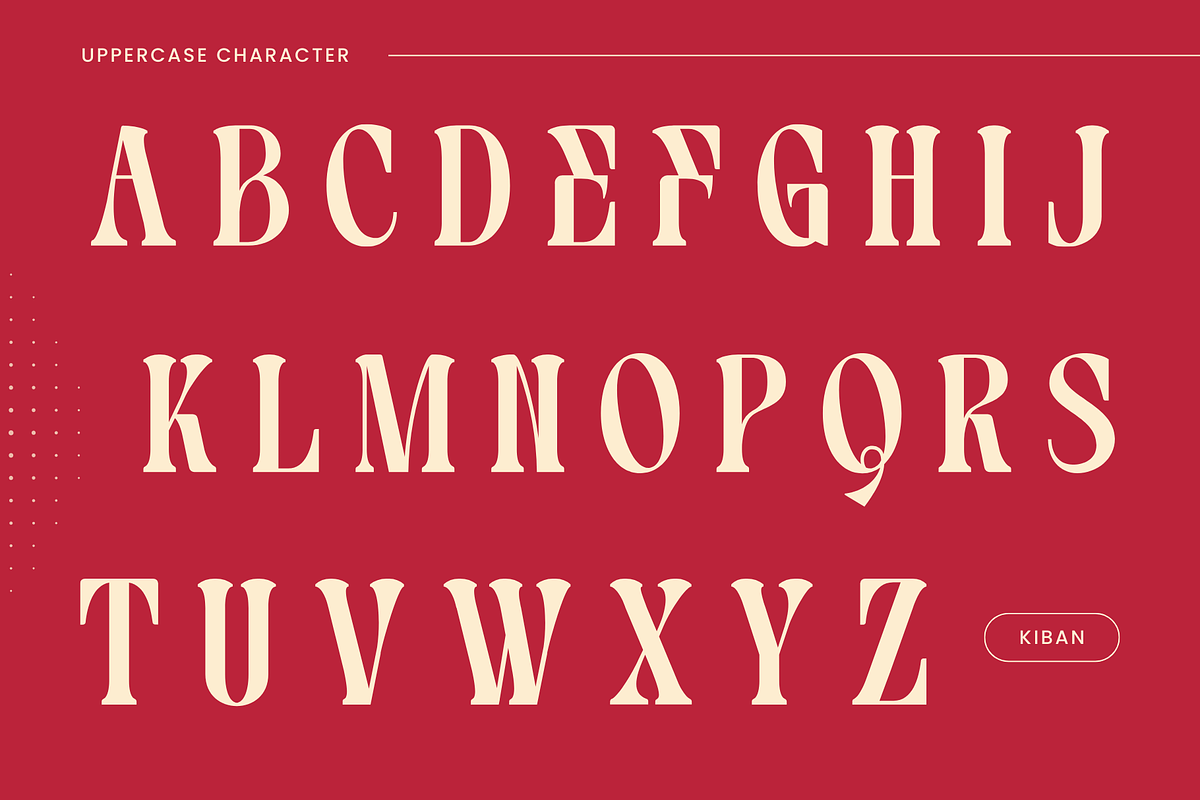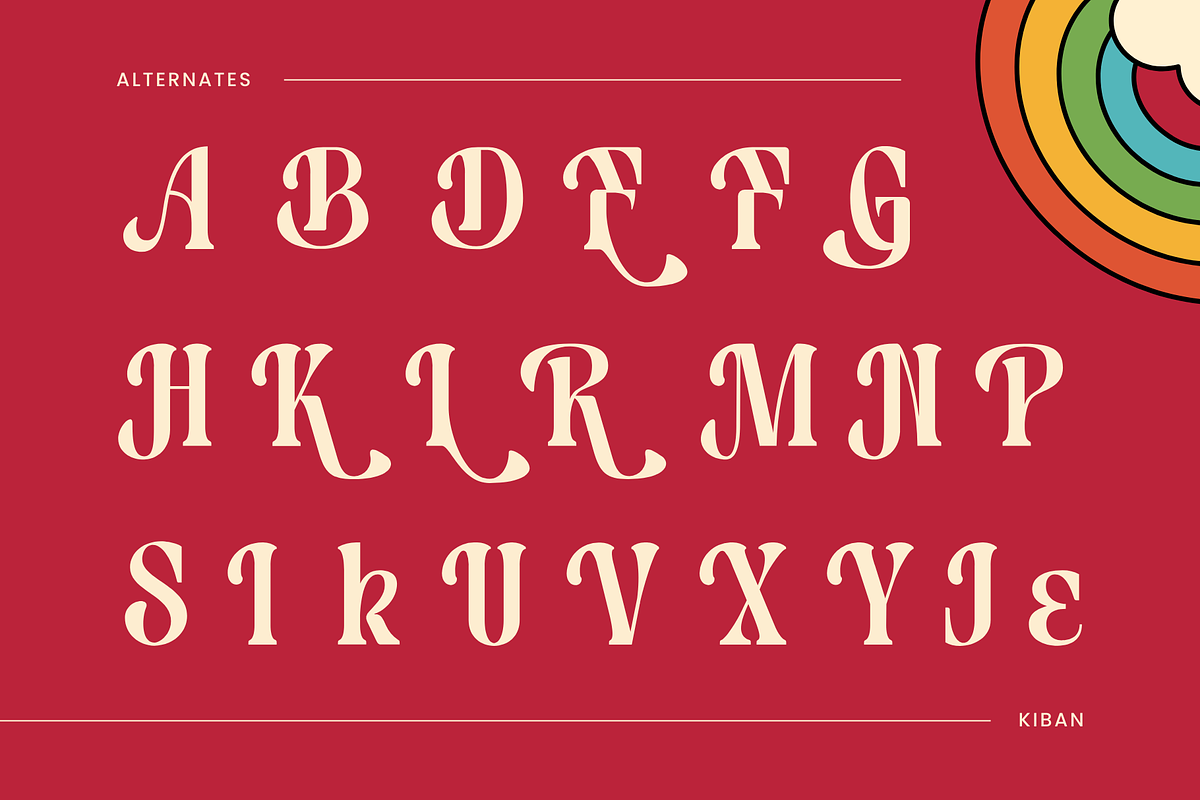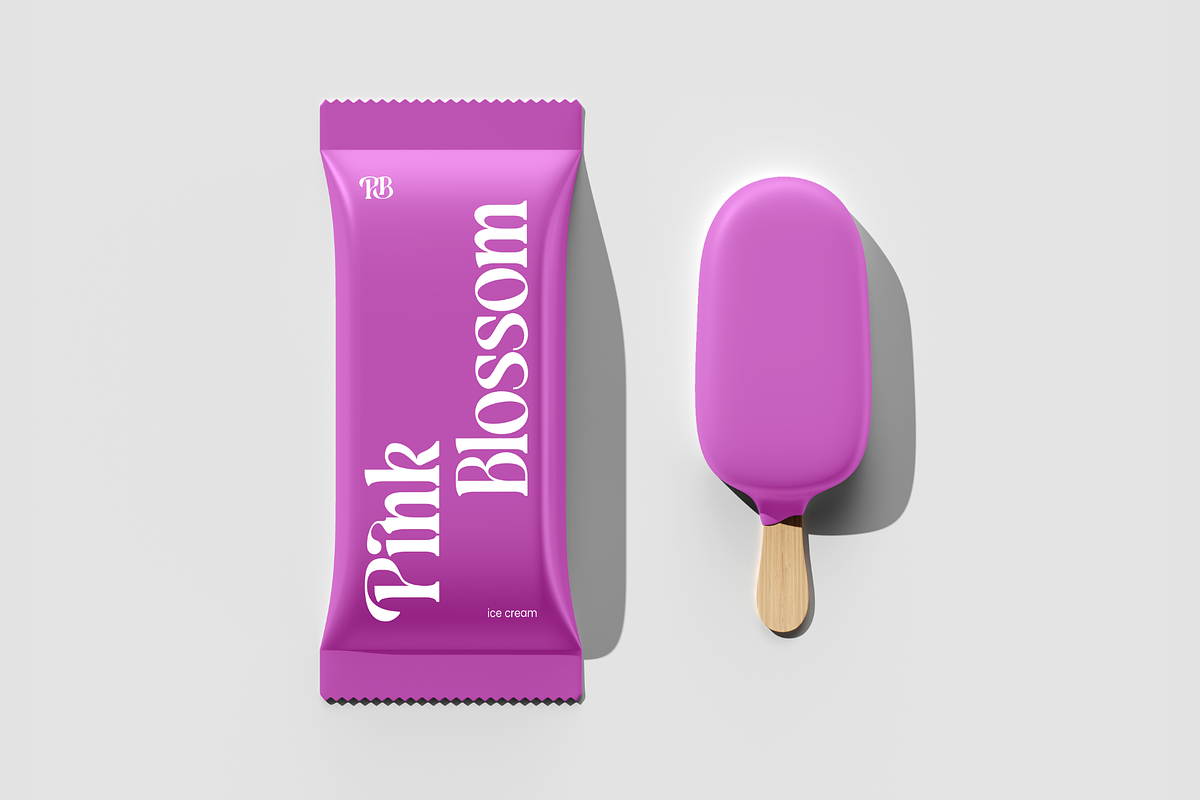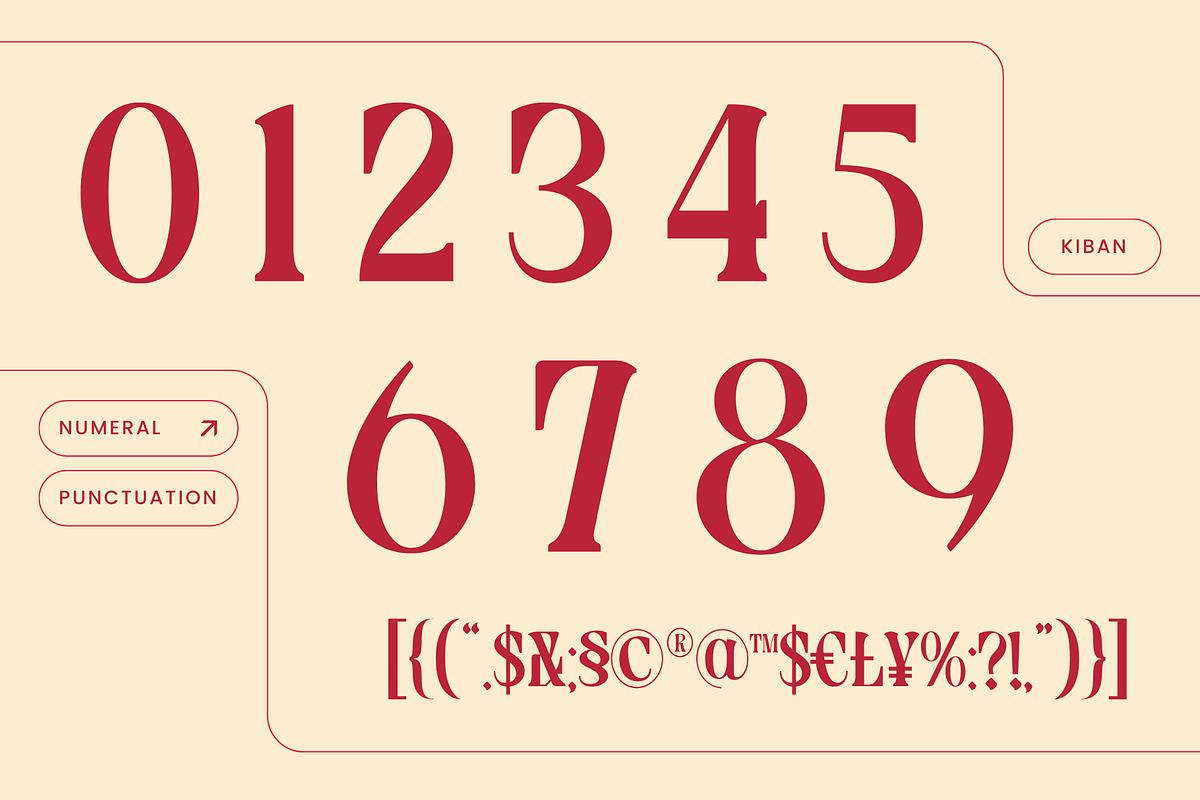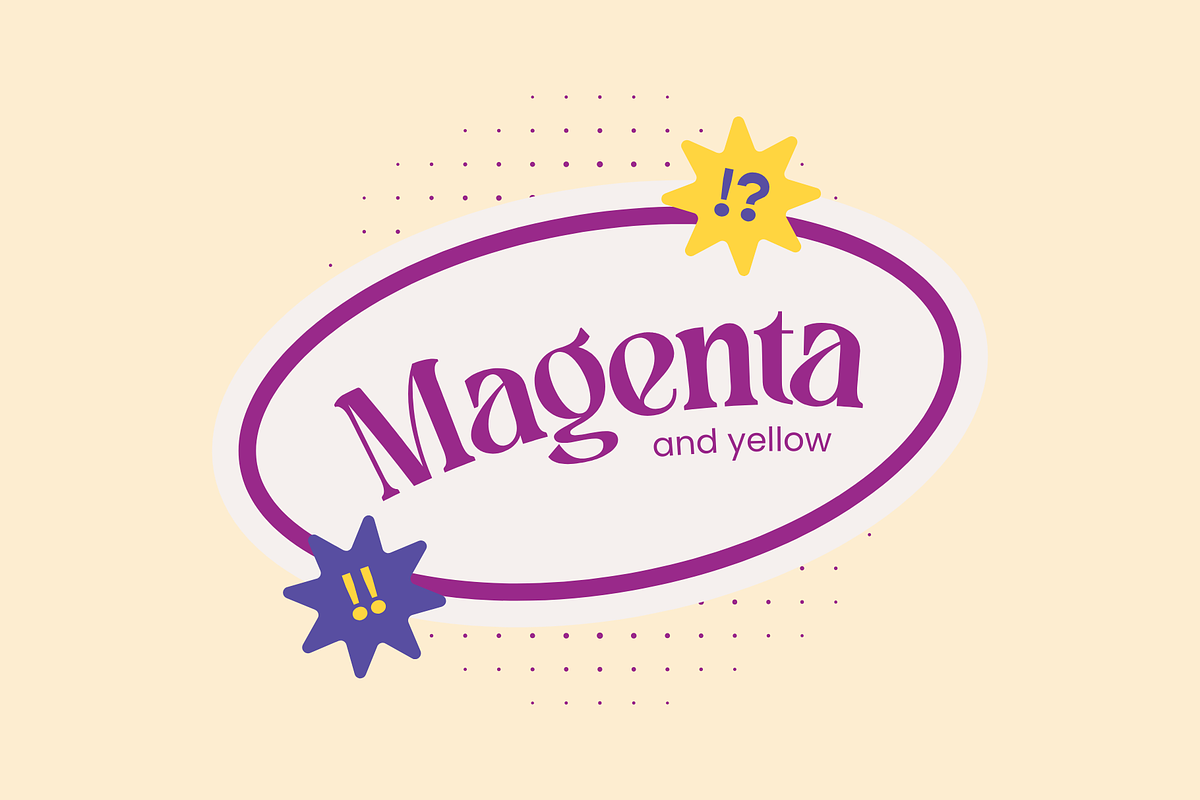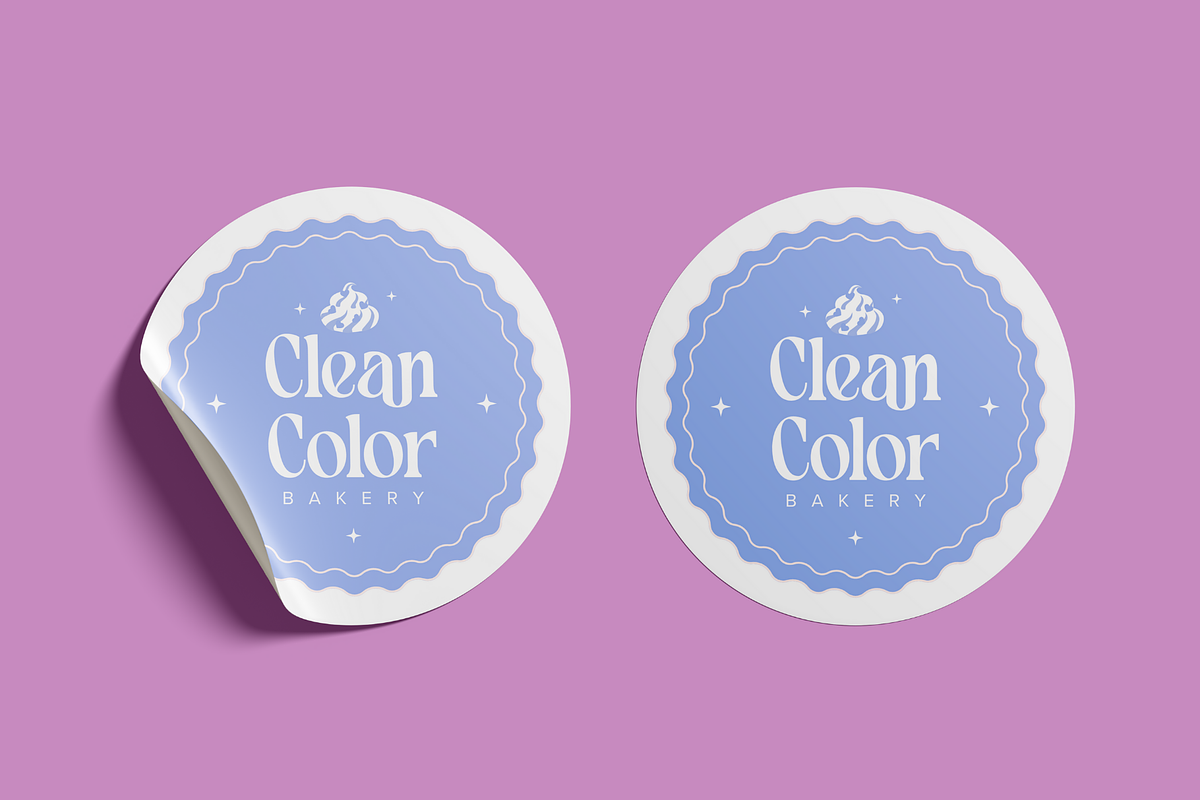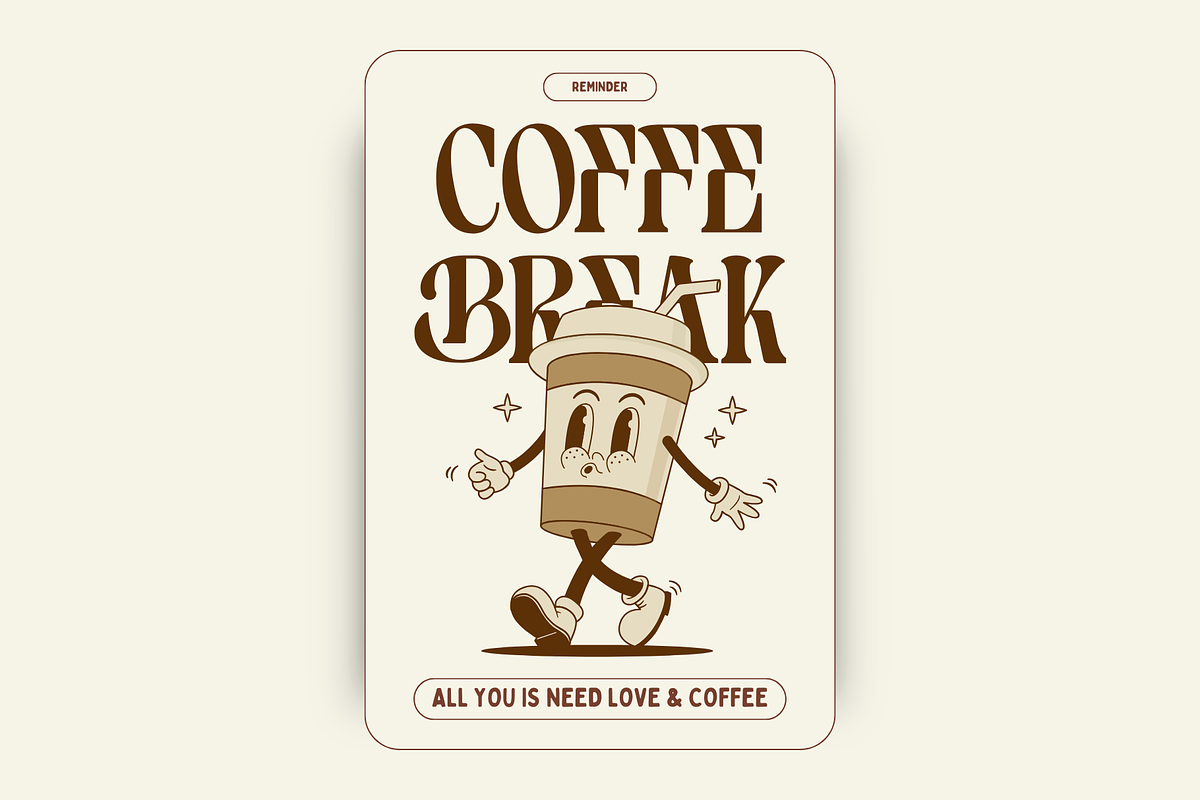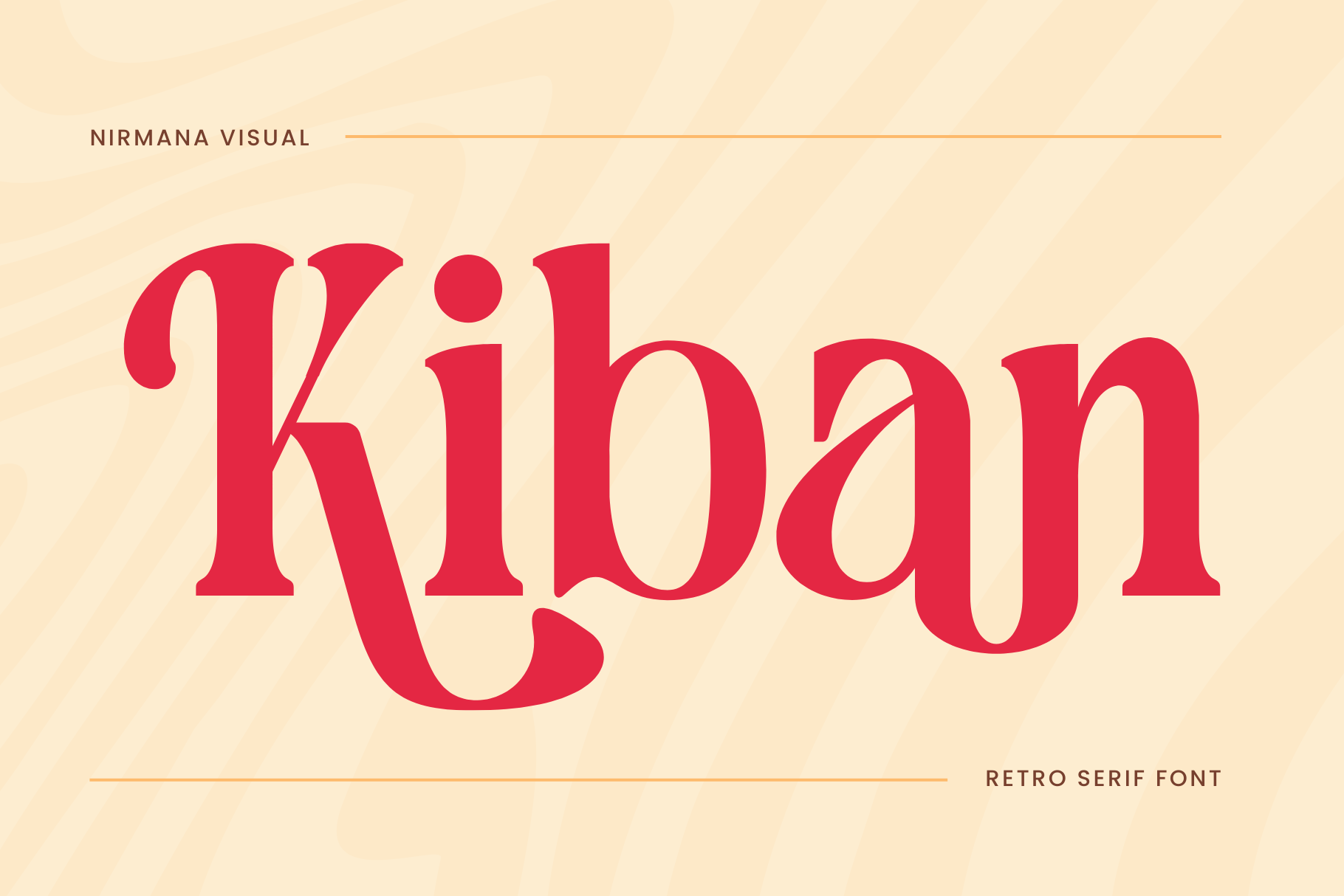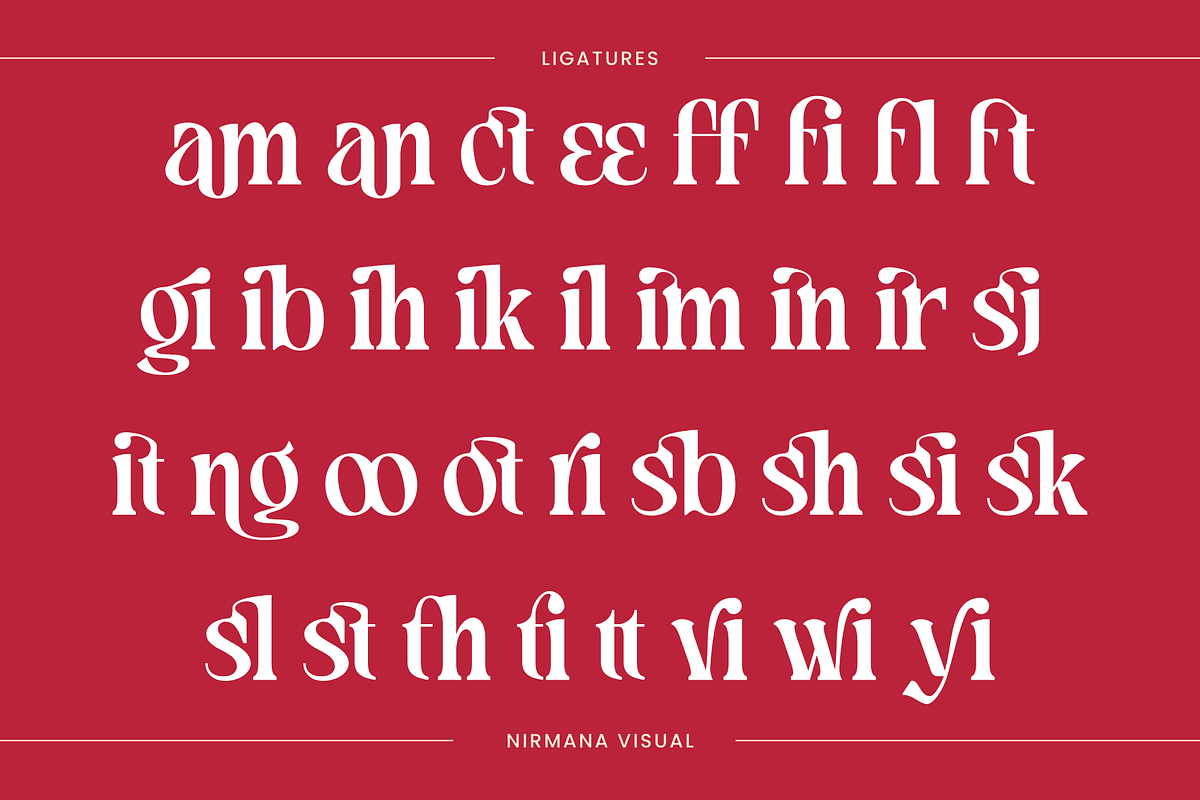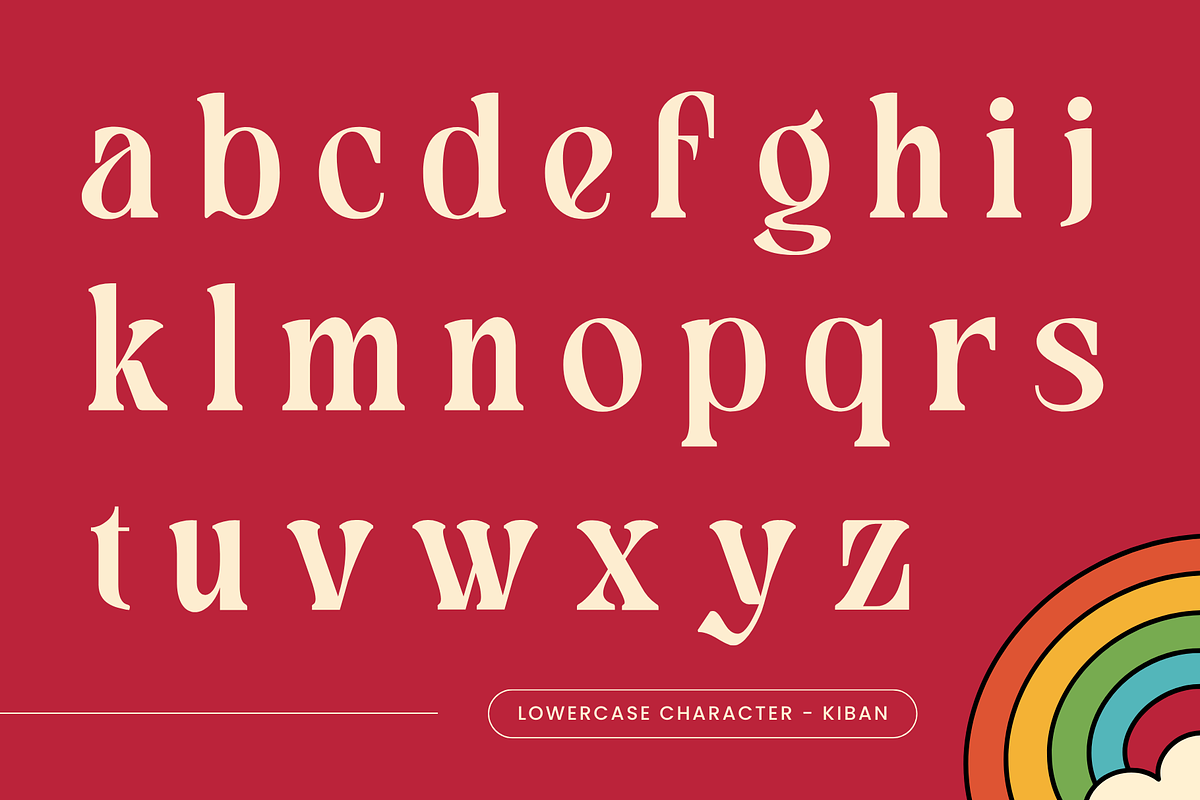
Kiban - Branding Logo Font
Kiban is a serif retro typeface that embodies timeless elegance and vintage charm. Inspired by classic design aesthetics, Kiban features bold strokes, intricate serifs, and smooth curves that evoke a sense of nostalgia while maintaining modern functionality. Perfect for branding, posters, logos, or editorial designs, Kiban adds sophistication and character to any project. Its versatility shines in both large headlines and refined text settings, making it a standout choice for retro-inspired designs.